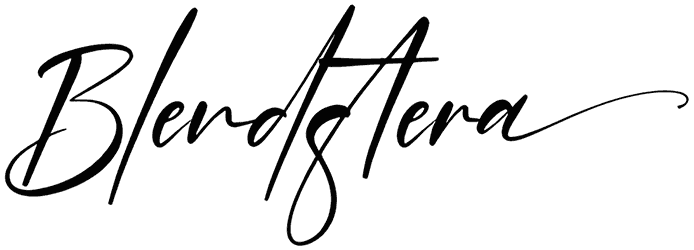
If you are looking for a stylish font with a handsome personality, the Blendstera font is a good choice. This script font is designed in two versions and seems written fast, which creates a serious style.
This autograph font may apply to various cases, such as invitation cards, magazine covers, and logos. Moreover, the Blendstera font’s letters have rounded edges and thin tails, making them memorable to the viewers. Download this luxurious font and create an enjoyable experience.